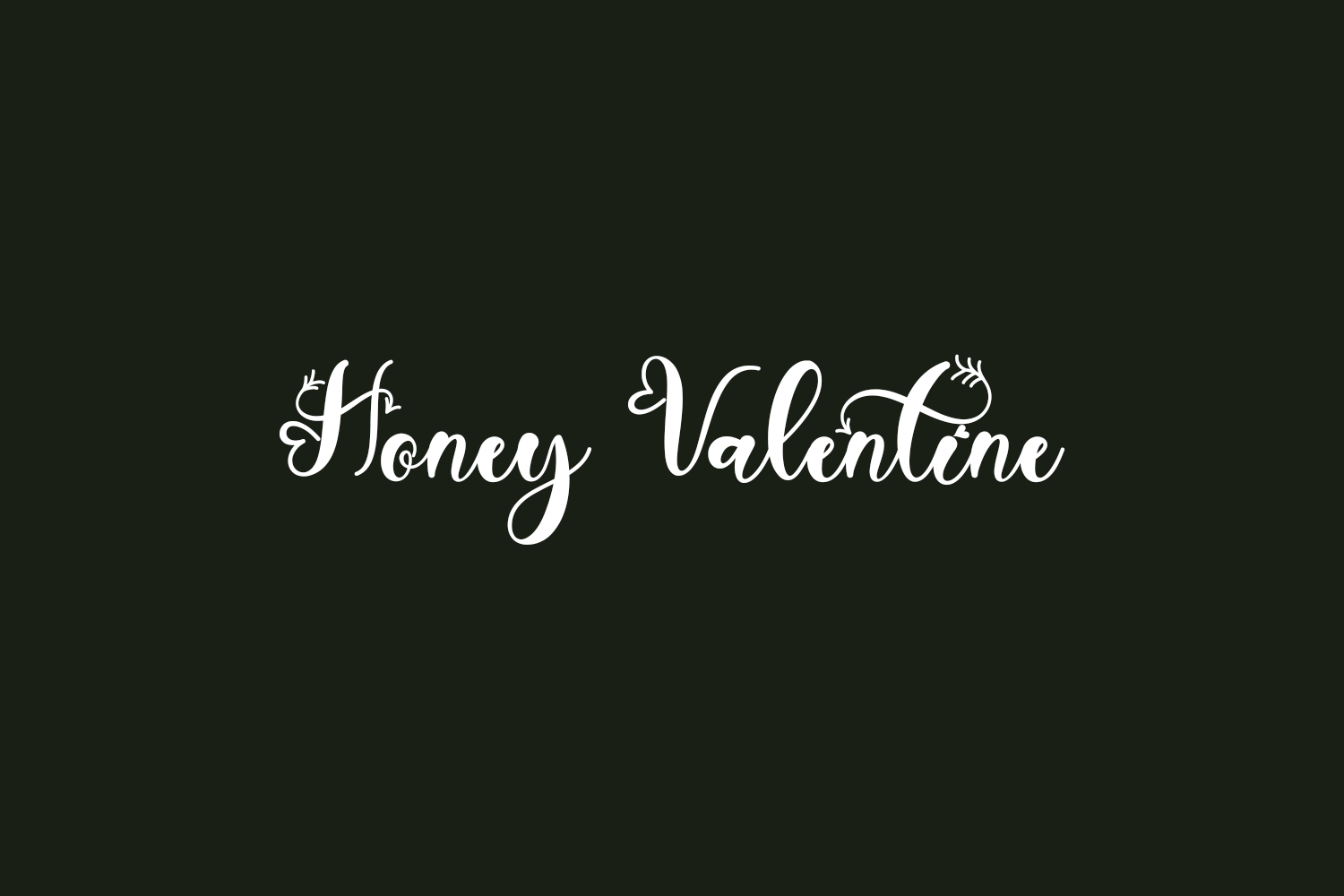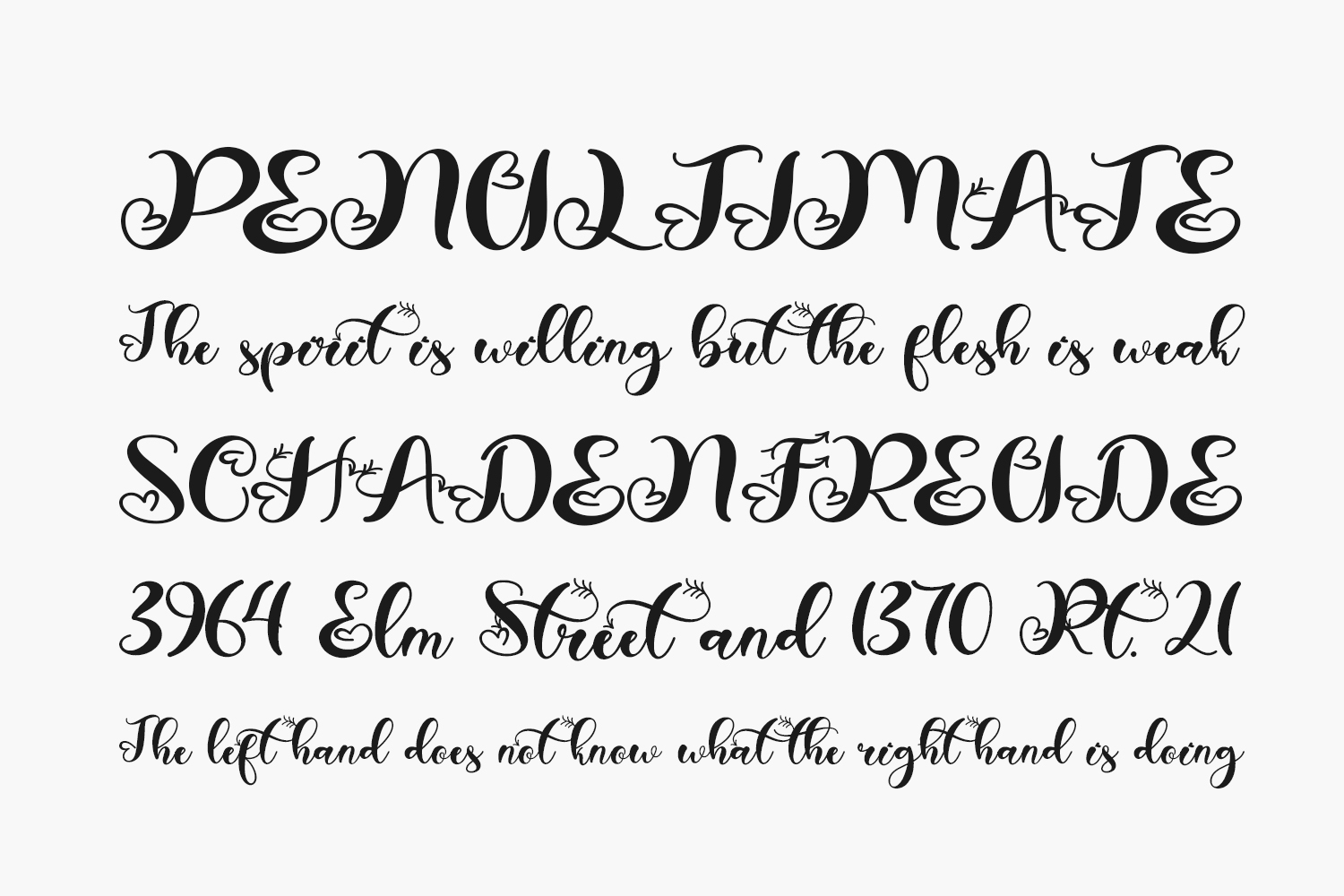
Honey Valentine Free Font is a beautiful and unique calligraphy script font. It can be used for all your work and needs, especially those related to Valentine’s Day, weddings, winter, Christmas, photography, engagement, promotions, and others. This font is easy to use and perfect for anyone. Honey Valentine Free Font was designed by Yoga Letter and is free for personal use only. Please purchase the full version for commercial use.